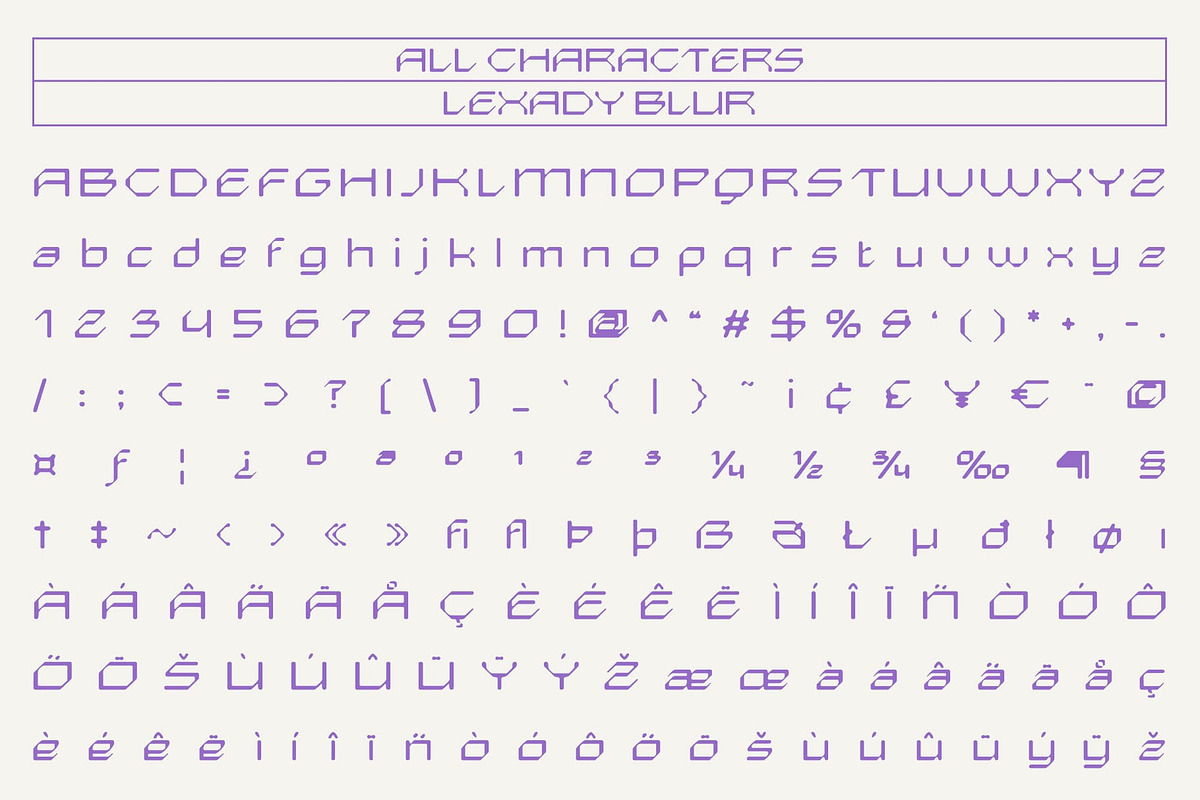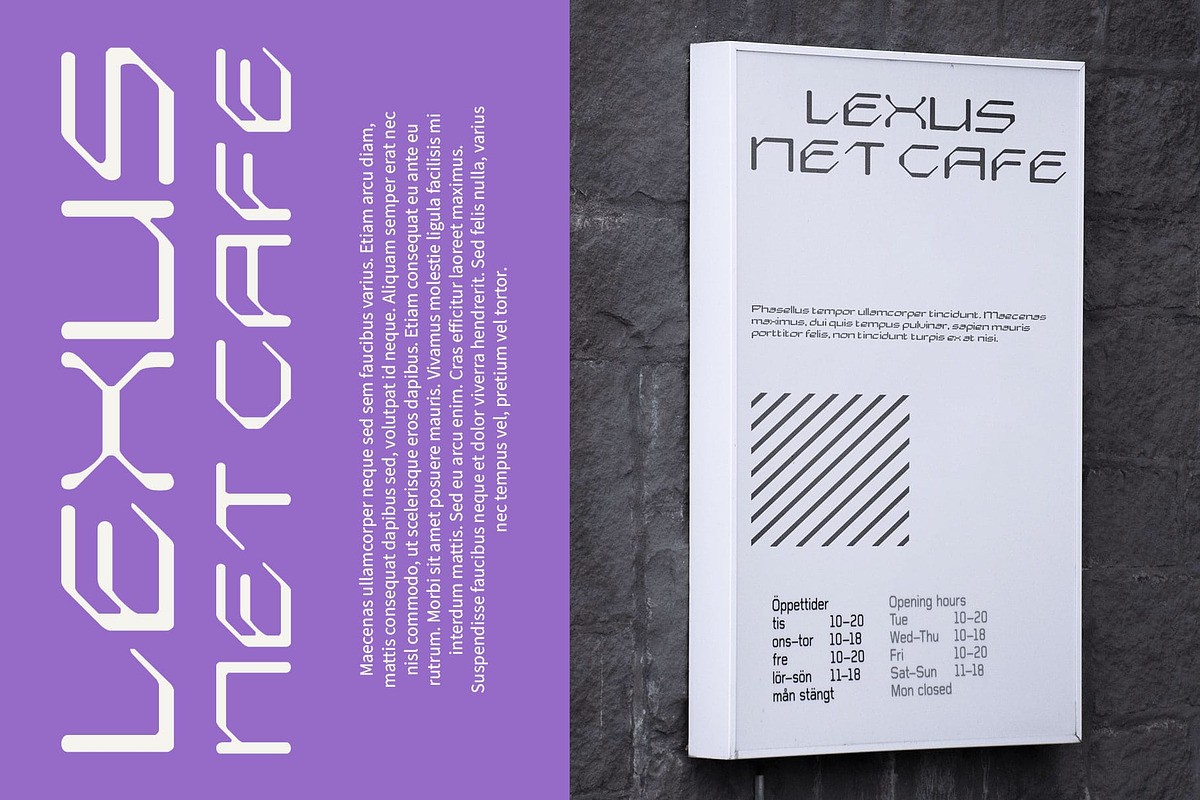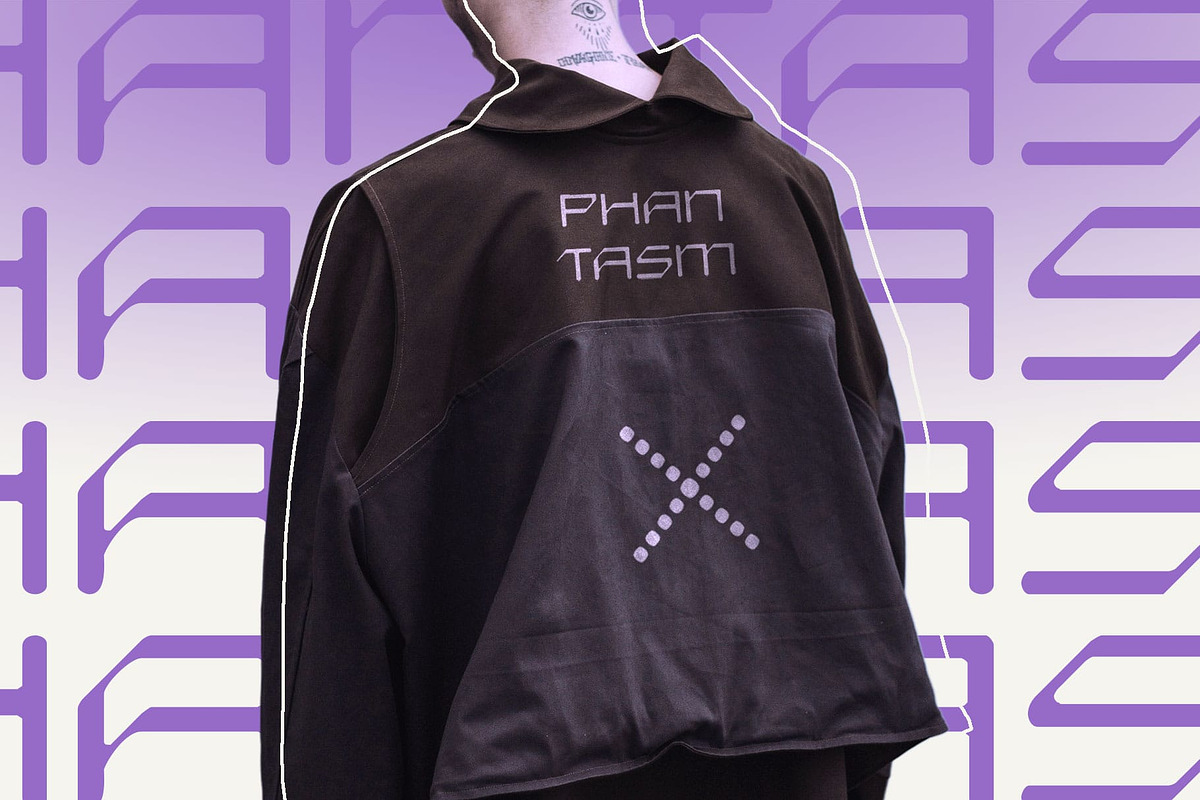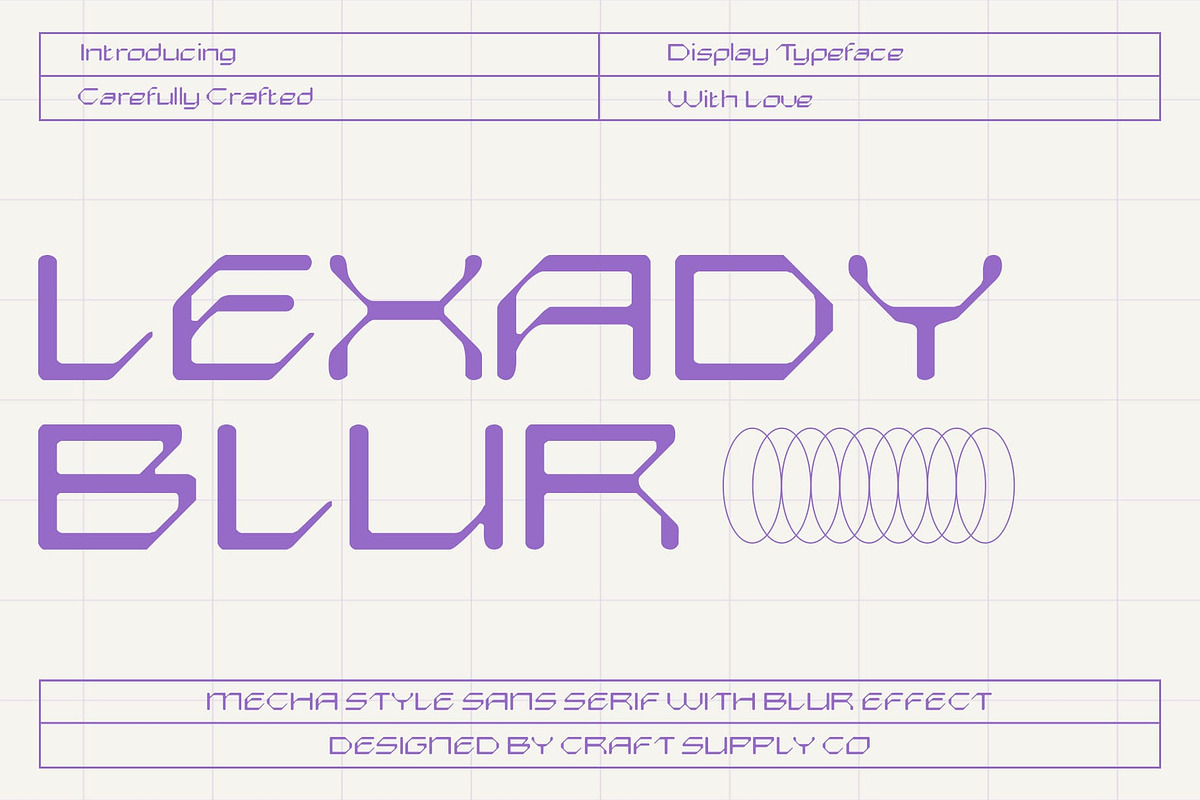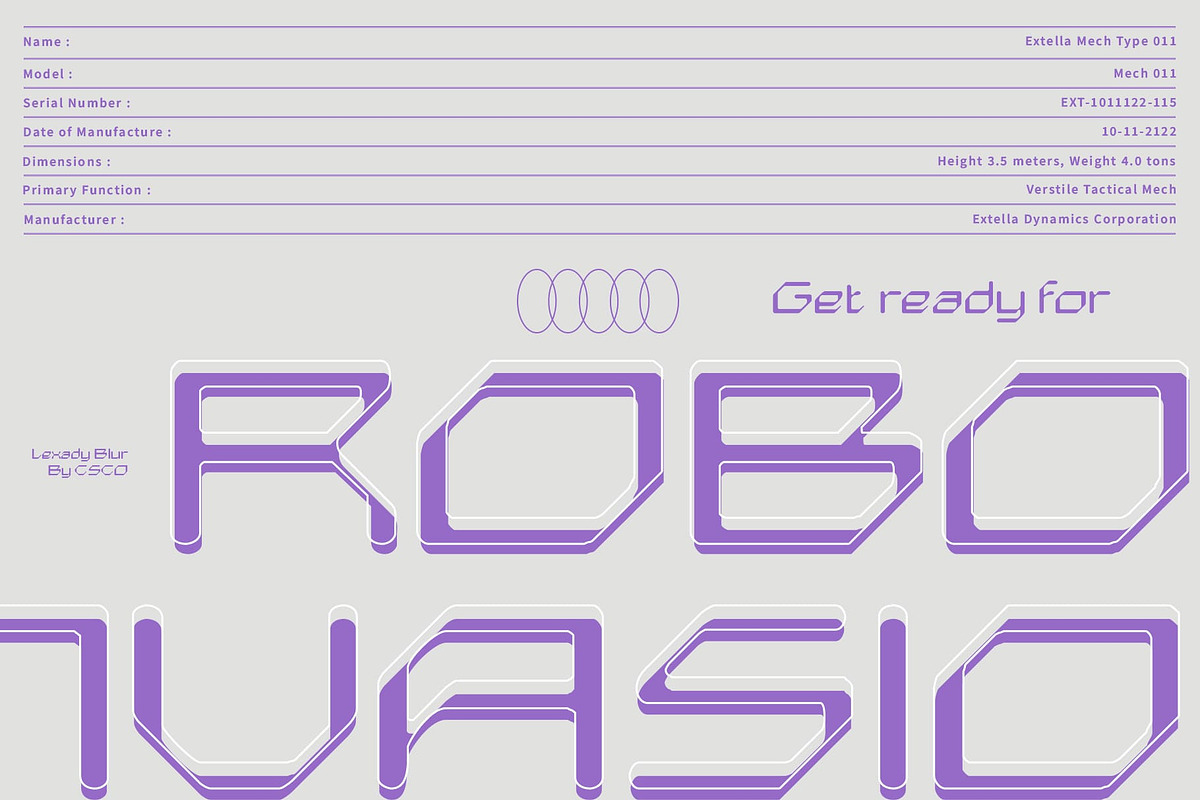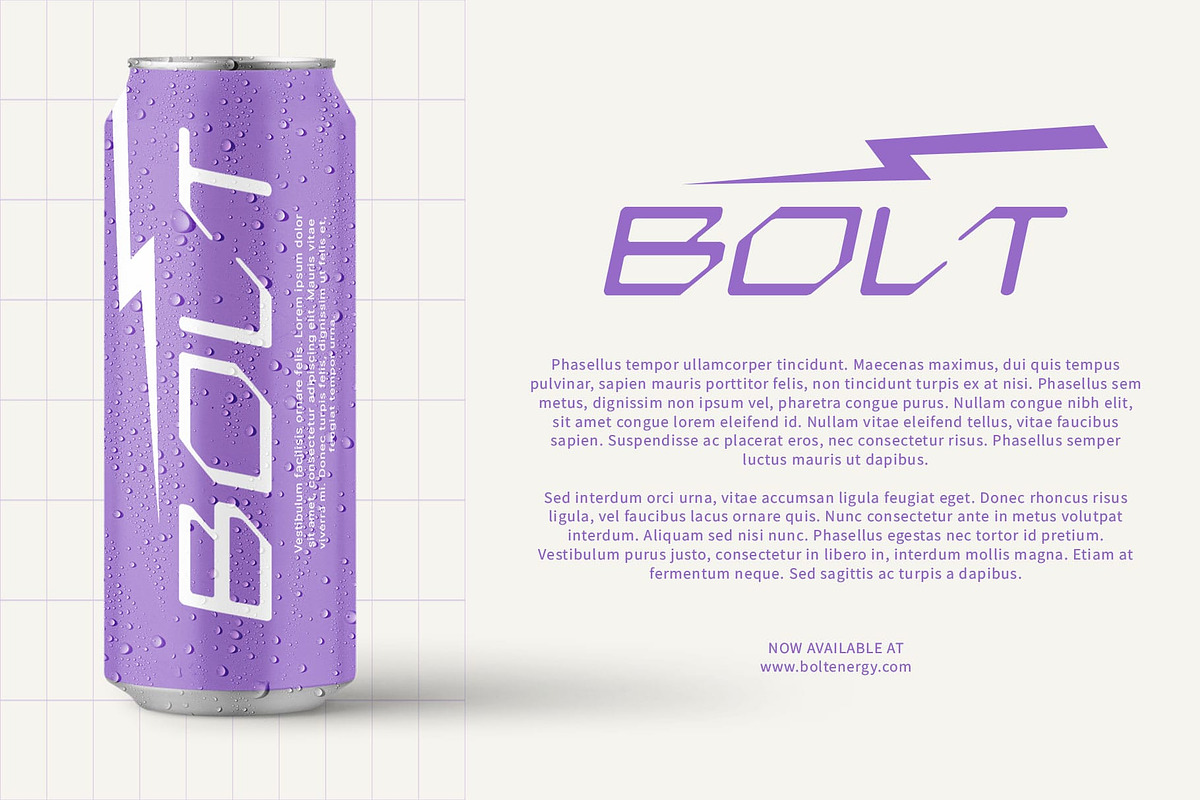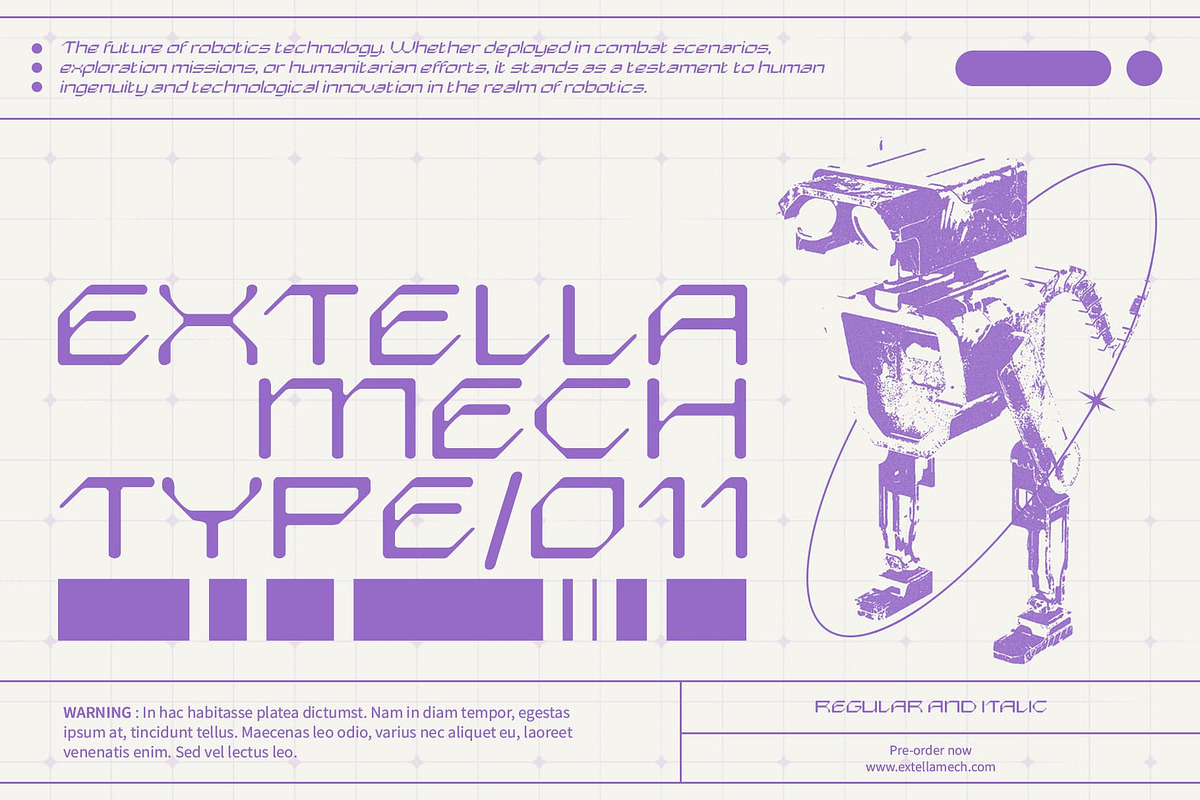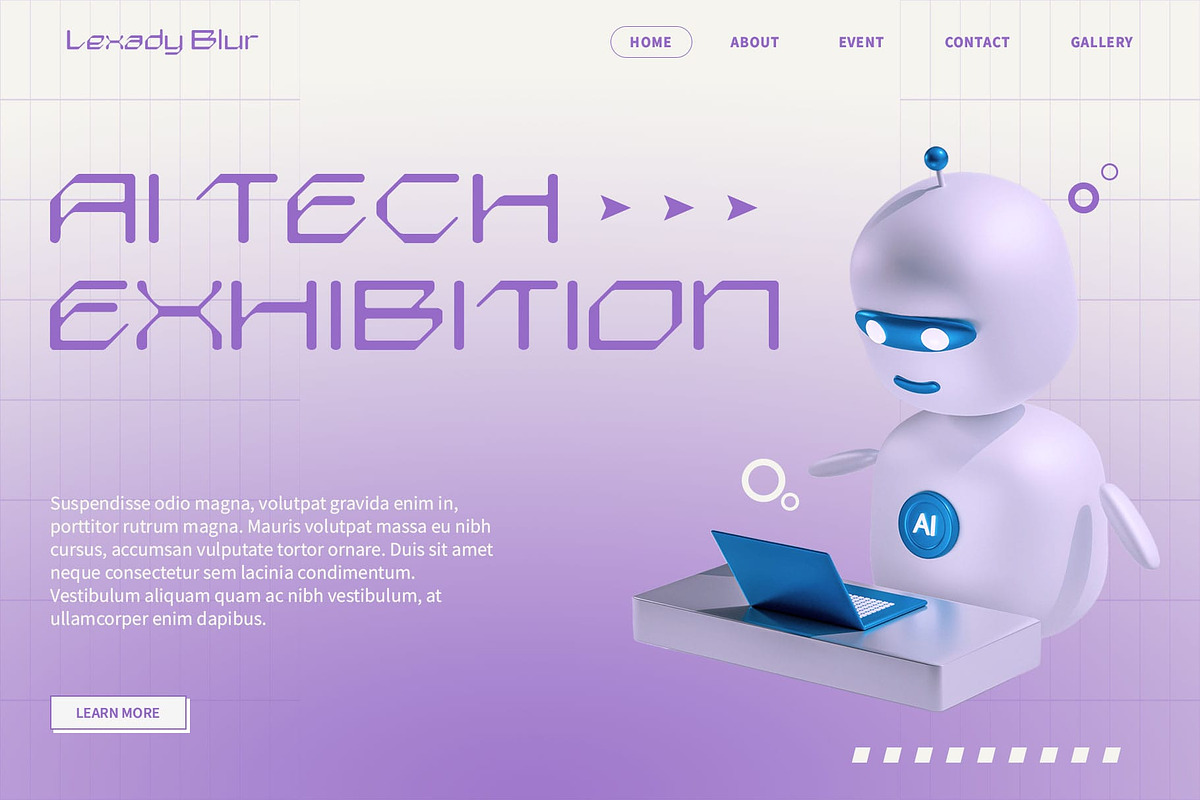
Lexady Blur
Lexady Blur Font: Cutting-Edge Modernity with a Futuristic Touch
Modern Display Font with Tech-Inspired Design Lexady Blur is a modern display font that combines tech-inspired design with a sleek blur effect, resulting in a highly innovative and contemporary appearance. Its clean, futuristic aesthetics convey sophistication and forward-thinking style.
Blur Effect for a Smooth, Dynamic Dimension The unique blur effect applied to Lexady Blur adds a smooth, modern dimension to the font, enhancing its futuristic vibe. This effect not only contributes to the font’s contemporary look but also creates a dynamic, visually engaging element that stands out in any design.
Perfect for Advanced and Dynamic Applications Ideal for technology websites, digital applications, and promotional materials, Lexady Blur is designed to capture attention with its advanced and cutting-edge appearance. Whether you’re creating sleek tech interfaces or eye-catching marketing materials, this font provides the perfect balance of modern elegance and innovative flair. Elevate your projects with Lexady Blur, where technology meets dynamic design.
- Lexady Blur Regular
- Lexady Blur Italic